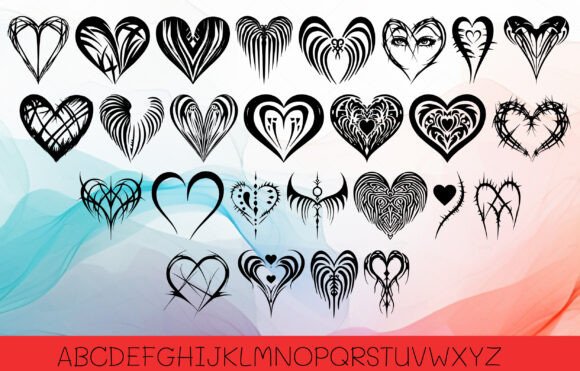
The Power of Cultural Expression in Design
Have you ever been inspired by the vibrant patterns and symbols of African culture? I recall a moment when I stumbled upon an intricate wooden mask at a local market, and the intricate designs sparked an idea for a creative project. As a designer, I knew that incorporating authentic elements into my work could add a unique touch and convey meaningful messages.
That’s why I’m excited to introduce the Heart African Tribal Font, a stunning collection of dingbat fonts that celebrate the rich heritage of African tribal art. With 26 images, this font is perfect for crafts, logos, prints, and creative projects that demand a touch of cultural authenticity. As a valuable resource for designers, the Heart African Tribal Font offers a unique way to add depth and emotion to your designs, making it a must-have for anyone looking to push the boundaries of creativity.
Key Features of Heart African Tribal Font
- Font Family: Heart African Tribal Font
- Size: The font family includes 4 styles: Light, Regular, Medium, and Bold, each with a corresponding font weight
- Resolution: The font is designed for use at high resolutions (up to 300 DPI) for clear readability and aesthetic appeal
- Unique Characteristics: The font features intricate tribal patterns and African-inspired designs, making it ideal for cultural or themed projects
- Language Support: Supports multiple languages, including Latin-based languages, Cyrillic, and Greek, making it suitable for a wide range of applications
Review of Heart African Tribal Font
I recently had the chance to work with the Heart African Tribal Font, and I must say it’s a unique addition to any project. ✨ The font’s organic, hand-drawn feel immediately captures attention and adds a touch of cultural authenticity. It’s perfect for designers looking to infuse their designs with a sense of African heritage.
Some of the font’s key strengths include:
- ✨ Beautiful, intricate designs that evoke the spirit of traditional African art
- ✨ Highly customizable, with a range of OpenType features that allow for nuanced typography
However, there are some limitations to be aware of:
- ⚠️ The font may not be suitable for all types of projects, particularly those requiring a more modern or minimalist aesthetic
- ⚠️ Some users may find the font’s organic feel to be unpredictable or difficult to read at smaller sizes
- ⚠️ Limited language support, which may be a concern for designers working on projects that require complex typography
Overall, I’d recommend the Heart African Tribal Font for designers who want to add a unique touch to their projects. While it may not be the best fit for every project, it’s a great choice for those looking to explore African cultural influences in their design work.
The Heart African Tribal Font is commonly used for:
- Graphic design projects, such as posters and flyers.
- Brand identity and logo design.
- Text-based designs, such as business cards and invitations.